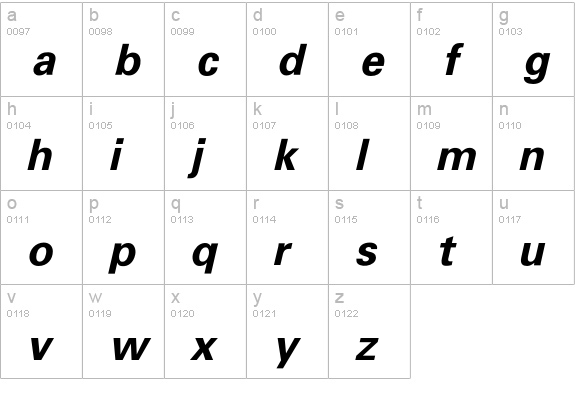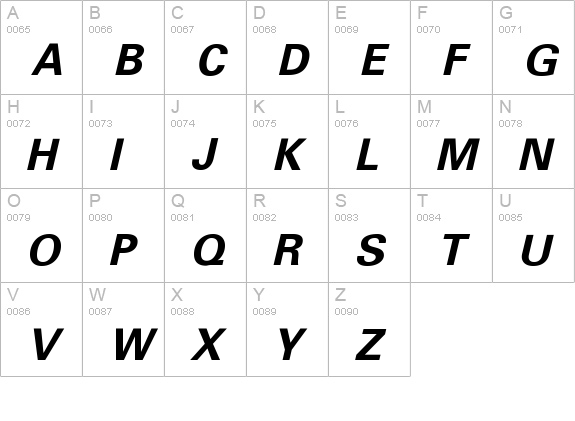
UniformBoldOblique Font Details
UniformBoldOblique is a striking and versatile font that effortlessly combines boldness and elegance. Its unique design captures attention and makes a powerful statement, making it ideal for a wide range of creative projects. Whether it's used in headlines, logos, or body text, this font is sure to leave a lasting impression. The bold and oblique styling of UniformBoldOblique adds depth and character to any text, giving it a bold and confident appearance. Its clean lines and sharp edges make it easy to read, ensuring that your message is effectively communicated to your audience. One of the best things about UniformBoldOblique is that it is freely available to download at FontsMarket.com. This means that you can easily access and use this exceptional font without any restrictions. Whether you're a professional designer or a hobbyist, you can take advantage of this font's versatility and aesthetic appeal to enhance your projects. With its wide availability, you can easily integrate UniformBoldOblique into your design workflow and create stunning visuals that stand out from the crowd. So, if you're looking for a font that exudes confidence, style, and professionalism, UniformBoldOblique is the perfect choice. Its free availability at FontsMarket.com makes it even more appealing, allowing you to elevate your designs without breaking the bank. Download UniformBoldOblique today and unleash your creativity with this exceptional font.